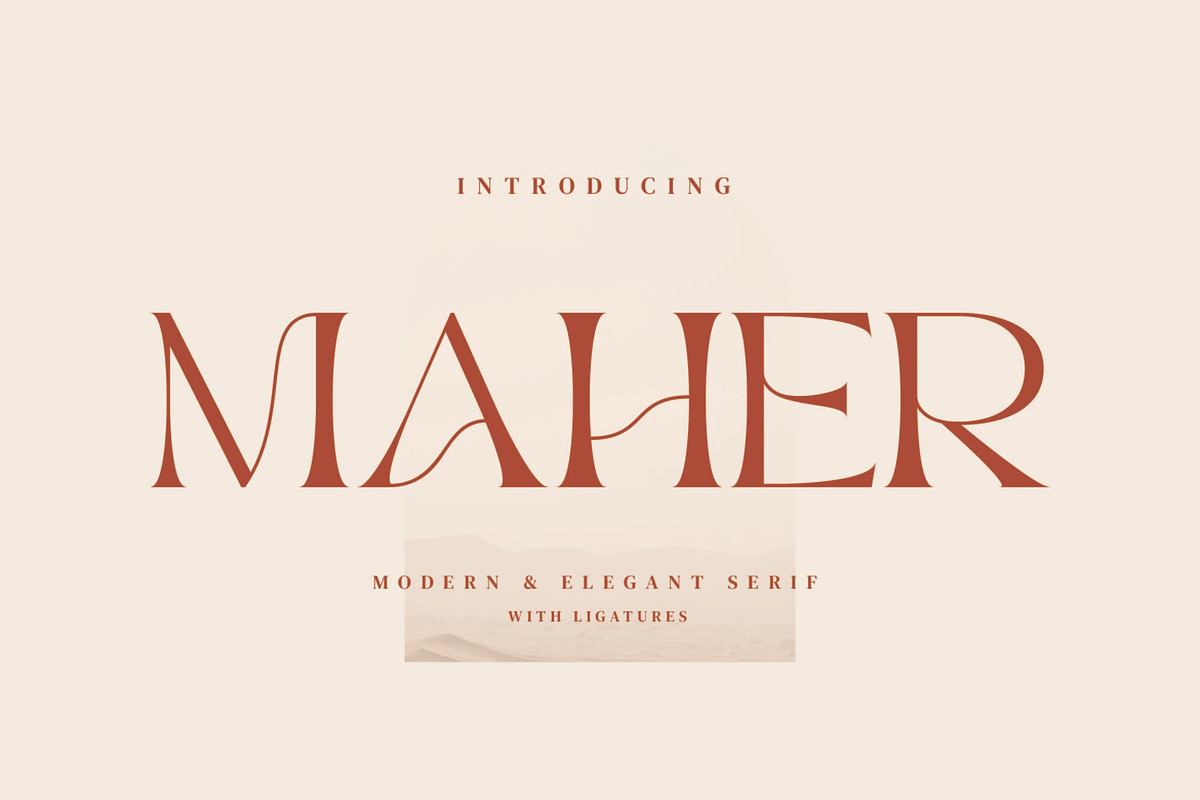
Maher - Stylish Serif Font Free Download
Maher - Stylish Serif Font Free Download is a classy and modern serif typeface that blends elegance with readability. With its high-contrast strokes, unique ligatures, and timeless design, Maher is ideal for fashion branding, wedding invitations, editorial layouts, logos, and upscale product packaging.
This font brings a luxurious, refined feel to any project while remaining versatile enough for both print and digital media. Whether you're creating a magazine spread or a chic brand identity, Maher helps your design stand out with style and sophistication.